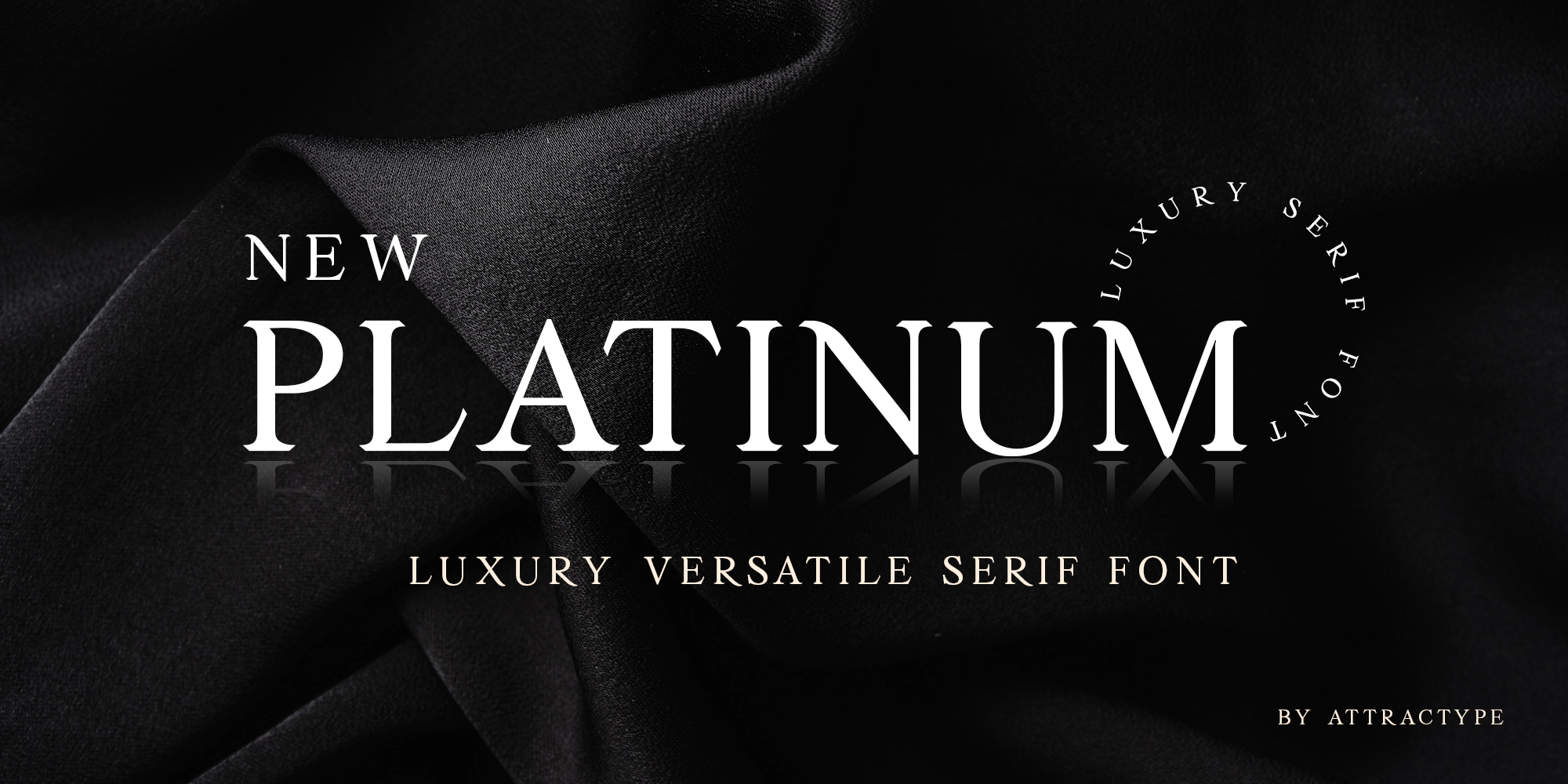
New Platinum Font excels in executive corporate branding, luxury financial services marketing, premium technology product launches, high-end investment firm presentations, exclusive membership programs, sophisticated business cards, elite conference materials, and prestigious award recognitions. Its refined elegance makes it perfect for projects requiring ultimate professional credibility and premium positioning.
What makes New Platinum Font exciting is its ability to convey supreme quality and cutting-edge sophistication through impeccably designed letterforms. The sleek, modern construction features precise geometric elements with platinum-like finish that radiates exclusivity and innovation. This typeface embodies next-generation luxury and professional excellence, making every design feel technologically advanced and exceptionally valuable.
New Platinum Font family includes Regular, Bold, Light, Medium, Italic, and Ultra variations, providing designers with comprehensive tools for creating premium corporate and luxury-focused typographic solutions.